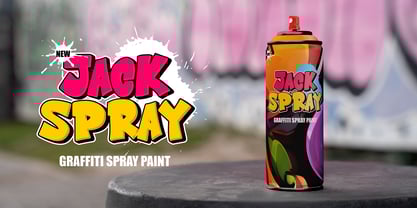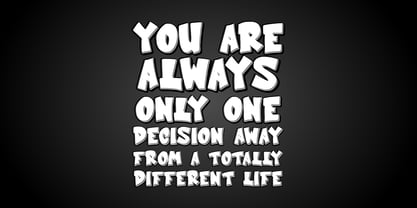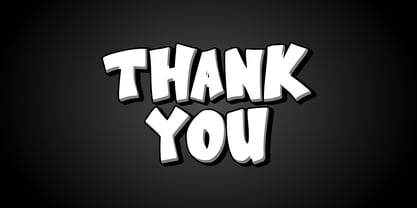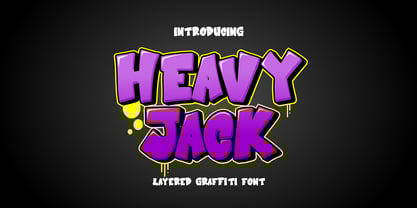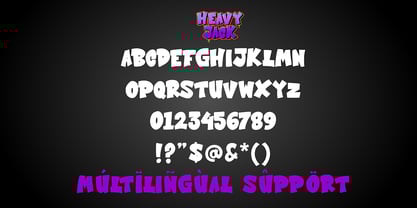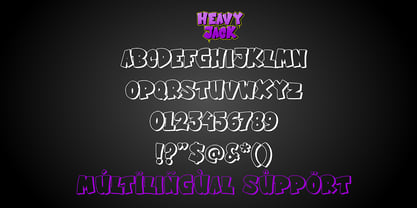
Heavy Jack
by Sipanji21
Heavy Jack is a chunky, bold graffiti font with layered styles and a playful street art vibe. With thick strokes, 3D shadow effects, and fun drips, this typeface is perfect for urban-themed design, hip hop branding, t-shirt graphics, and bold headlines. It includes multiple styles to layer: Solid, Shadow, and Outline. Great for use in digital and print, it brings a fresh, rebellious energy to your work.